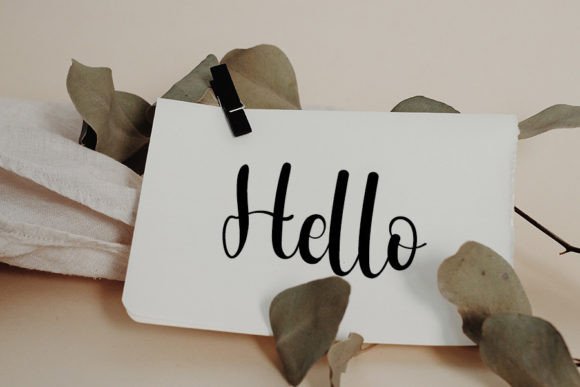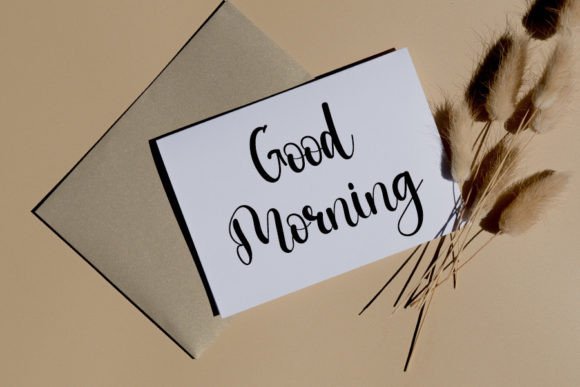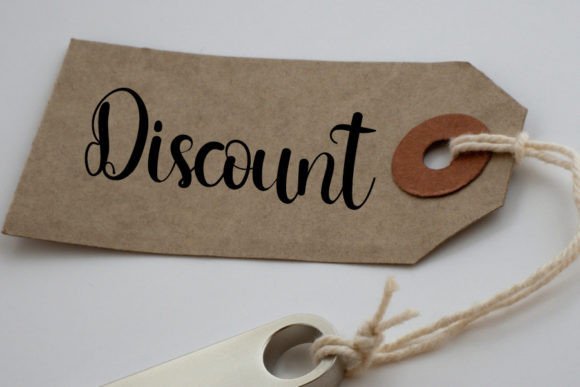
Introducing Alien Font: The Elegant and Timeless Choice for Designers
Are you on the hunt for a font that exudes elegance and sophistication? Look no further than the Alien Font, a beautiful handwritten font that is sure to capture your heart. With its incredibly distinct and timeless style, this font is perfect for designers and crafters looking to create spectacular designs that stand out from the crowd.
The Characteristics of Alien Font
The Alien Font is described as a neat and beautiful handwritten font, with an elegant touch that sets it apart from other fonts. Its unique style is characterized by:
- Elegant letterforms: Each letter is carefully crafted to exude a sense of sophistication and refinement.
- Flowing connections: The font features smooth connections between letters, creating a fluid and natural look.
- Timeless appeal: The Alien Font has a classic, timeless quality that ensures it will remain stylish for years to come.
Why Designers and Crafters Love Alien Font
So, why have designers and crafters fallen in love with the Alien Font? Here are just a few reasons:
- Versatility: The Alien Font is perfect for a wide range of projects, from wedding invitations and branding materials to social media graphics and blog posts.
- Emotional connection: The font’s elegant and refined style creates an instant emotional connection with readers, making it perfect for projects where you want to convey a sense of luxury or sophistication.
- Easy to read: Despite its elegant style, the Alien Font is highly legible, making it perfect for use in body text as well as headings.
How to Use Alien Font in Your Designs
Ready to fall in love with the Alien Font? Here are some tips for incorporating it into your designs:
- Pair it with bold colors: The Alien Font looks stunning paired with bold, bright colors that add contrast and visual interest.
- Use it for headings: The font’s elegant style makes it perfect for use in headings and titles, where it can add a touch of sophistication and refinement.
- Experiment with textures: Add an extra layer of interest to your designs by experimenting with textures and patterns that complement the Alien Font.
Tips for Getting the Most Out of Alien Font
To get the most out of the Alien Font, here are a few tips to keep in mind:
- Pay attention to spacing: Make sure to adjust the spacing between letters and words to create a clean and visually appealing design.
- Use it consistently: Use the Alien Font consistently throughout your design to create a cohesive and polished look.
- Don’t be afraid to experiment: Don’t be afraid to try new and creative things with the Alien Font – it’s a versatile font that can be used in a wide range of contexts.
In conclusion, the Alien Font is a beautiful and elegant handwritten font that is perfect for designers and crafters looking to create spectacular designs. With its incredibly distinct and timeless style, this font is sure to capture your heart and become a go-to choice for your favorite projects. So why wait? Fall in love with the Alien Font today and start creating stunning designs that stand out from the crowd!